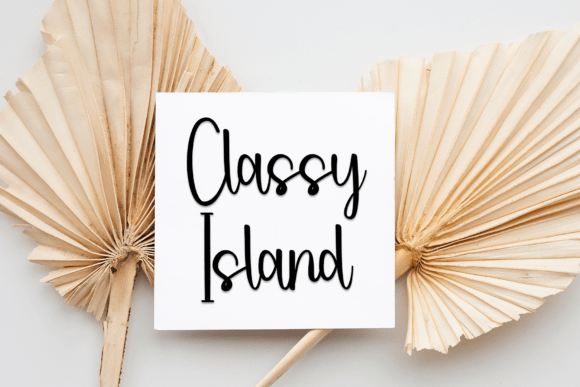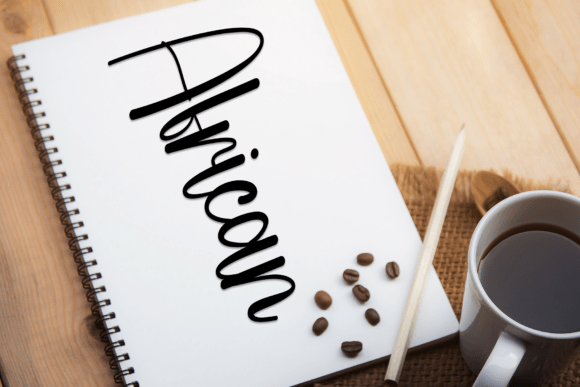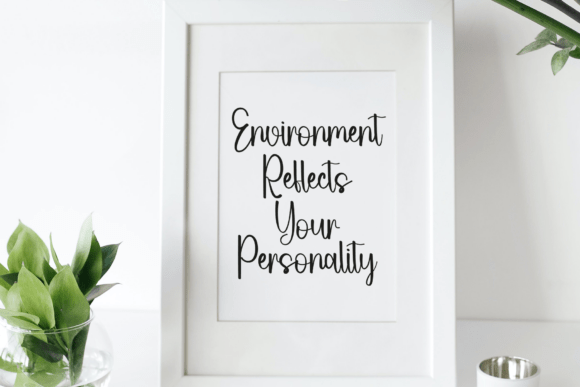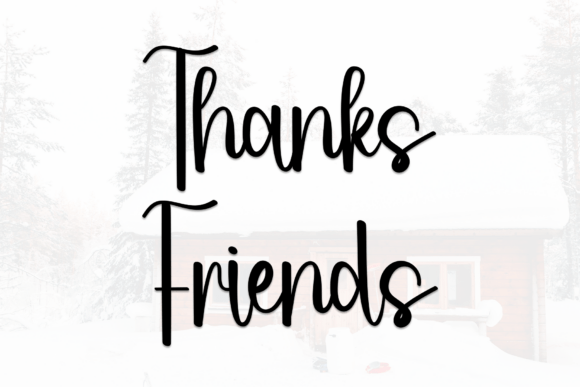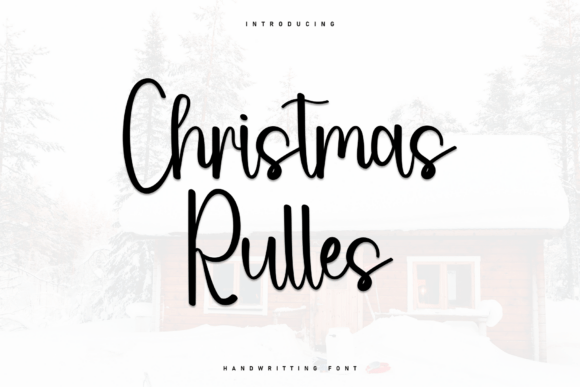
Introducing Christmas Rulles Font: A Charming Handwritten Delight
Are you looking for a font that exudes warmth, comfort, and a touch of festive charm? Look no further than Christmas Rulles Font, a beautiful handwritten font that is sure to capture the hearts of designers, crafters, and anyone looking to add a personal touch to their projects. In this article, we’ll dive into the world of Christmas Rulles, exploring its unique features, uses, and benefits.
The Essence of Christmas Rulles Font
Christmas Rulles Font is a charming handwritten font that is filled with a sense of heartfelt perfection. Its smooth strokes and organic lines evoke a relaxed atmosphere, making it perfect for a variety of design projects. The font’s gentle curves and fluid connections create a sense of movement and fluidity, giving it a dynamic and lively feel.
Whether you’re a designer, crafter, or simply someone who loves to create, Christmas Rulles Font is an excellent choice for a wide range of projects. Here are just a few ideas to get you started:
- Branding: Use Christmas Rulles Font to create a unique and memorable brand identity that stands out from the crowd.
- Invitations: Add a touch of festive charm to your invitations, whether it’s for a holiday party, wedding, or baby shower.
- Social Media Graphics: Create eye-catching social media graphics that showcase your brand’s personality and style.
- Crafting: Use Christmas Rulles Font to add a personal touch to your crafting projects, such as handmade cards, gift tags, and scrapbooking.
Key Features of Christmas Rulles Font
So, what makes Christmas Rulles Font so special? Here are some of its key features:
- Handwritten style: Christmas Rulles Font has a beautiful, handwritten style that is both elegant and approachable.
- Smooth strokes: The font’s smooth strokes and organic lines create a sense of fluidity and movement.
- Relaxed atmosphere: Christmas Rulles Font evokes a relaxed atmosphere, making it perfect for projects that require a friendly and approachable tone.
- Versatile: The font is versatile and can be used for a wide range of projects, from branding to crafting.
Tips for Using Christmas Rulles Font
Here are some tips for getting the most out of Christmas Rulles Font:
- Pair with complementary fonts: Pair Christmas Rulles Font with complementary fonts to create a unique and visually appealing typography.
- Experiment with colors: Don’t be afraid to experiment with different colors and textures to add depth and interest to your designs.
- Use for headlines and body text: Christmas Rulles Font is suitable for both headlines and body text, making it a great choice for a wide range of projects.
In conclusion, Christmas Rulles Font is a charming handwritten font that is perfect for designers, crafters, and anyone looking to add a personal touch to their projects. Its smooth strokes, organic lines, and relaxed atmosphere make it an excellent choice for a wide range of design projects, from branding to crafting. With its versatility, elegance, and approachability, Christmas Rulles Font is sure to become a favorite in your design arsenal.
Get Creative with Christmas Rulles Font